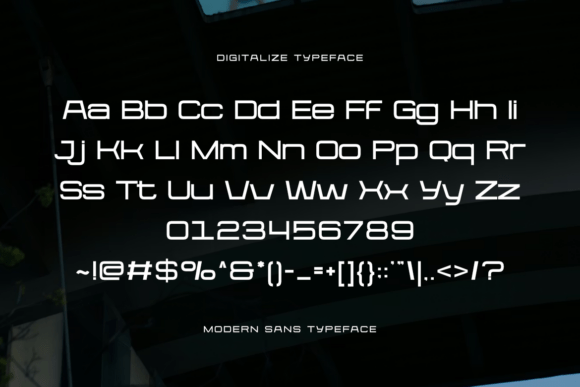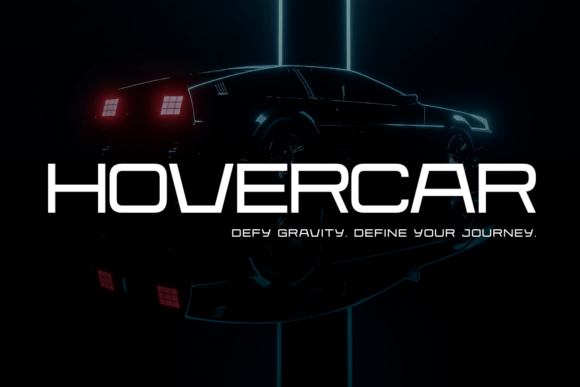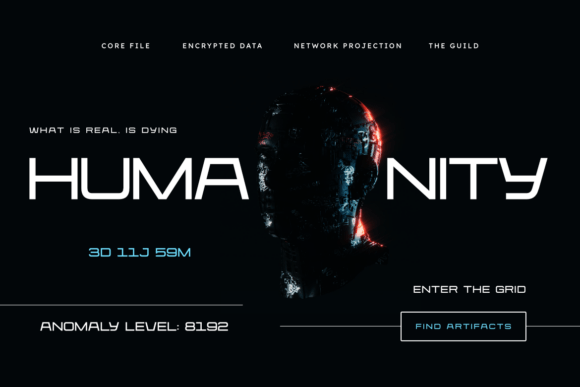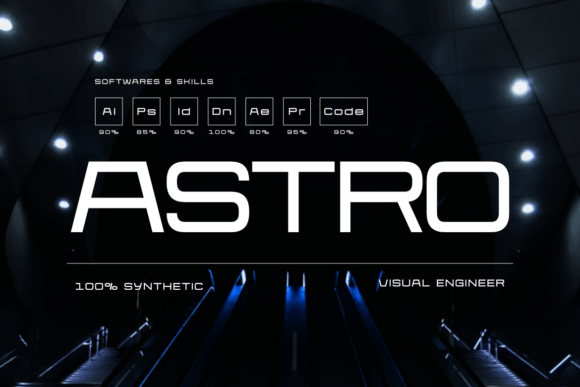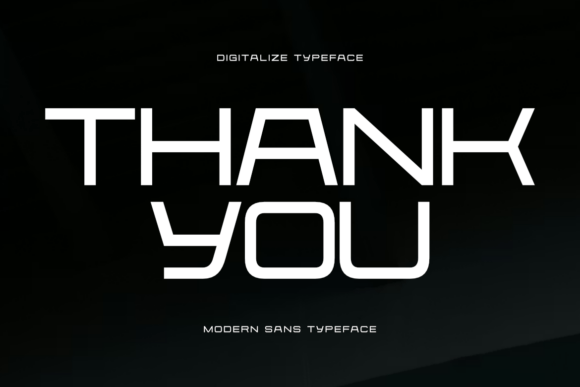
Introducing Digitalize Font: The Ultimate Modern Sci-Fi Typeface
In the realm of digital design, a font can make all the difference in conveying a message, establishing a brand identity, or setting the tone for a project. For designers and crafters seeking a typeface that embodies the essence of modern technology, gaming, and digital innovation, Digitalize font is the perfect solution. This sleek, futuristic, and modern sci-fi sans display typeface is specifically designed to elevate your designs with its cutting-edge aesthetic.
Design and Aesthetic
Digitalize boasts wide, distinctive letterforms and a clean, blocky structure that gives it a high-tech, minimal, and ultra-modern look. The font’s design is characterized by its simplicity, making it highly legible and versatile for various applications. Whether you’re working on impactful headlines, e-sports branding, movie titles, or future-themed posters, Digitalize provides the perfect blend of clarity and innovation.
- High-Tech Aesthetic: Digitalize’s unique design elements give it a futuristic feel that’s perfect for projects requiring a modern and technological edge.
- Minimalist Design: The font’s clean and simple structure ensures that your message is conveyed clearly and effectively, without any distractions.
- Versatility: Digitalize is suitable for a wide range of projects, including digital media, print materials, and online platforms.
- Legibility: The font’s clear and distinct letterforms make it highly legible, even at smaller sizes.
Perfect for Contemporary Designers
For contemporary designers looking to make a statement with their work, Digitalize offers the perfect combination of style and functionality. Its modern aesthetic and technological feel make it an ideal choice for projects that require a forward-thinking approach. Whether you’re designing for digital platforms, print media, or any other medium, Digitalize ensures that your work stands out with its unique and impactful style.
Applications of Digitalize Font
Digitalize font is incredibly versatile and can be used in a variety of contexts, including:
- E-Sports Branding: Create a strong and competitive brand identity with Digitalize’s modern and dynamic aesthetic.
- Movie Titles and Posters: Add a futuristic touch to your movie titles and posters with Digitalize’s sleek and high-tech design.
- Digital Concepts: Perfect for digital products, apps, and websites that require a modern and innovative feel.
- Impactful Headlines: Use Digitalize to create eye-catching headlines that demand attention.
Why Choose Digitalize?
In a world where digital design is constantly evolving, having a font that can keep up with the latest trends and technologies is essential. Digitalize font offers a unique combination of modern style, legibility, and versatility, making it an excellent choice for designers and crafters looking to elevate their work. With Digitalize, you can:
- Stay ahead of the curve with a font that’s specifically designed for modern digital concepts.
- Enhance your brand’s identity with a unique and recognizable aesthetic.
- Deliver clear and impactful messages that resonate with your audience.
Digitalize font is more than just a typeface – it’s a design statement. With its sleek, futuristic aesthetic and versatile design, it’s the perfect tool for contemporary designers looking to make an impact. Whether you’re working on e-sports branding, movie titles, digital concepts, or any project that requires a modern and technological feel, Digitalize is the ideal choice. Elevate your designs with Digitalize and experience the power of modern typography.